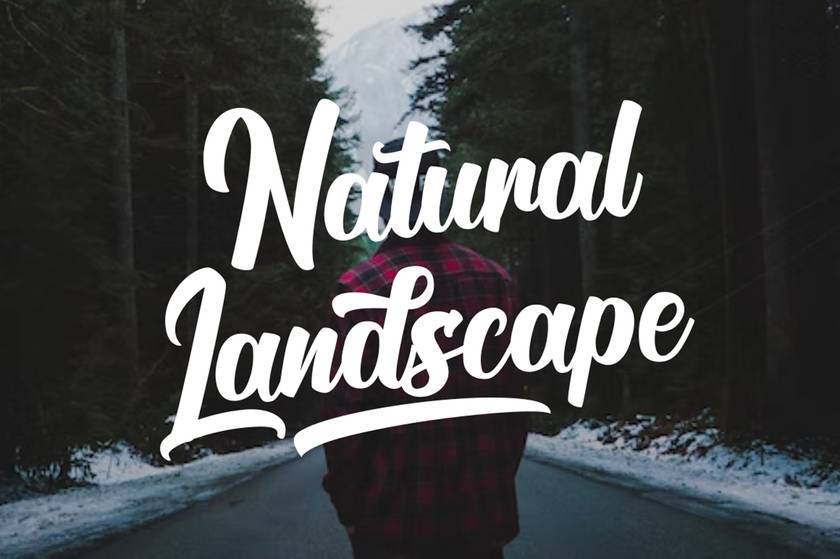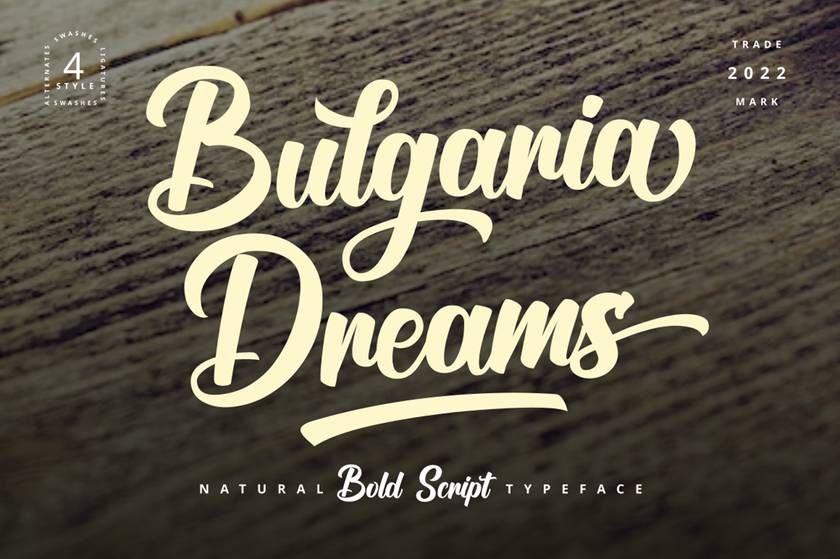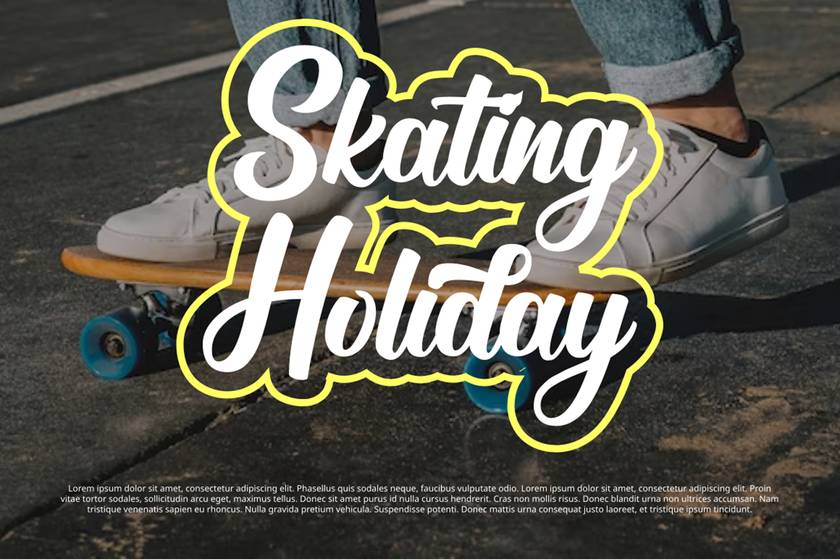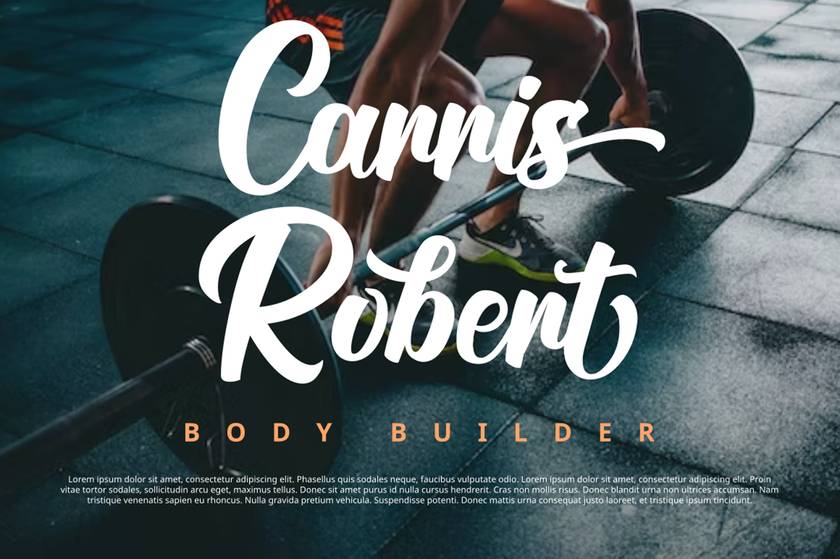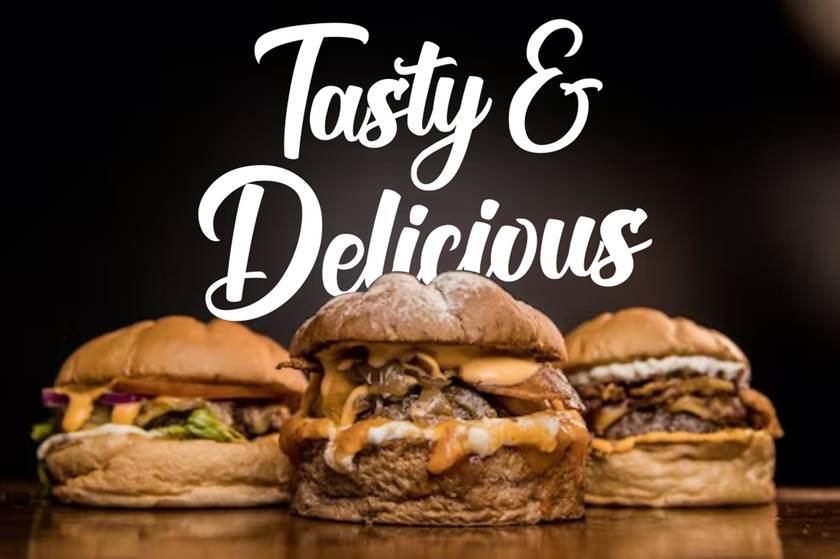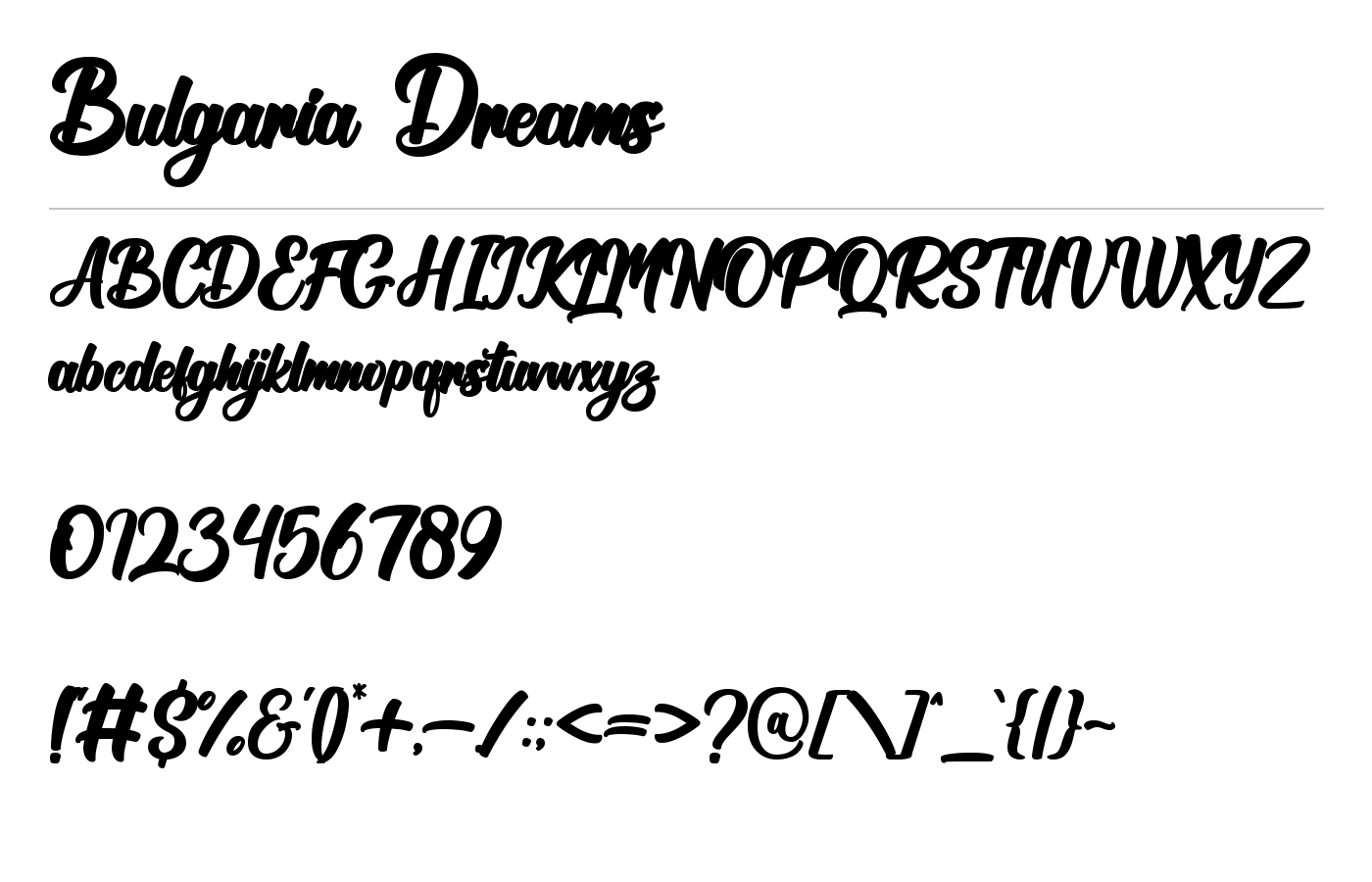
Bulgaria Dreams is a bold, script-style font with a friendly, handwritten feel that combines smooth curves and thick strokes to create a lively and expressive look. Its flowing letterforms and strong presence make it perfect for eye-catching headlines, logos, and branding that want to convey warmth and creativity with a touch of elegance. This font works well in designs that seek a personal and inviting vibe, such as fashion, packaging, or lifestyle projects.
Bulgaria Dreams Font
About Bulgaria Dreams Font
| Font family | Bulgaria Dreams Font |
| Designer | Nur Rohman Rizki |
| Font subfamily | Bold, Italic |